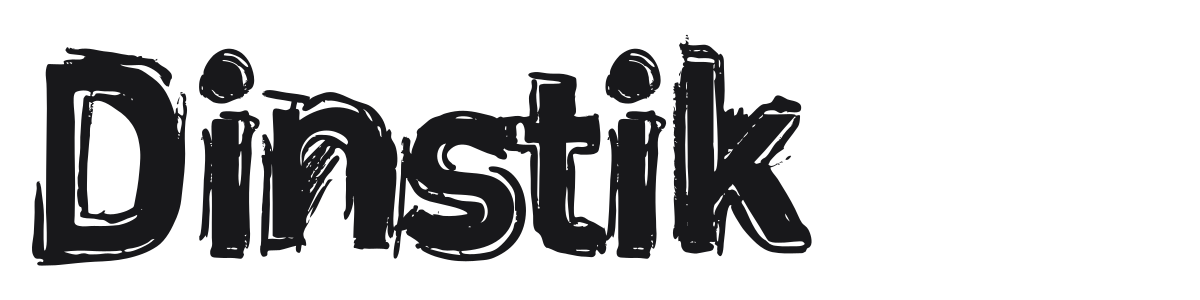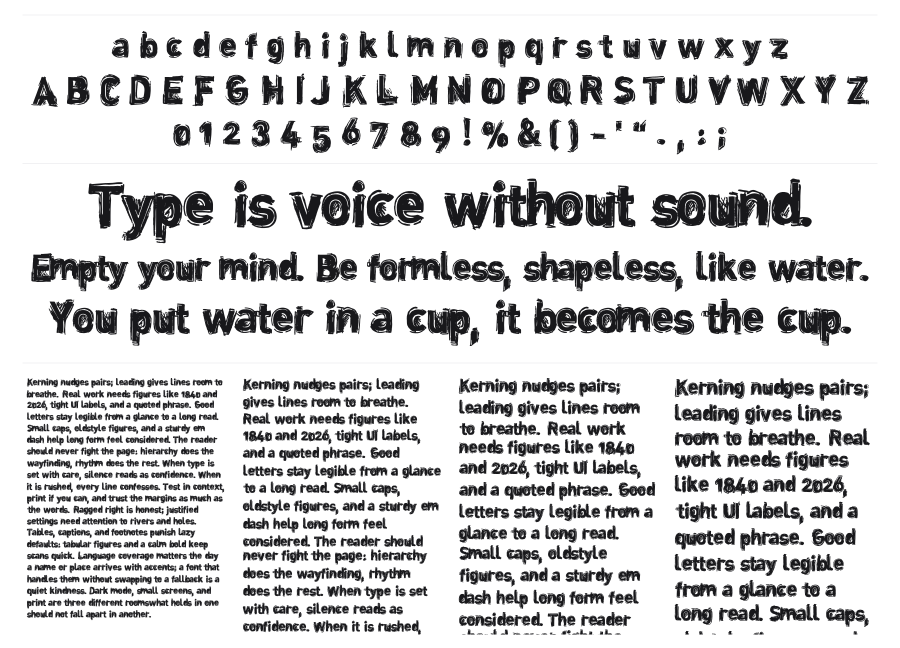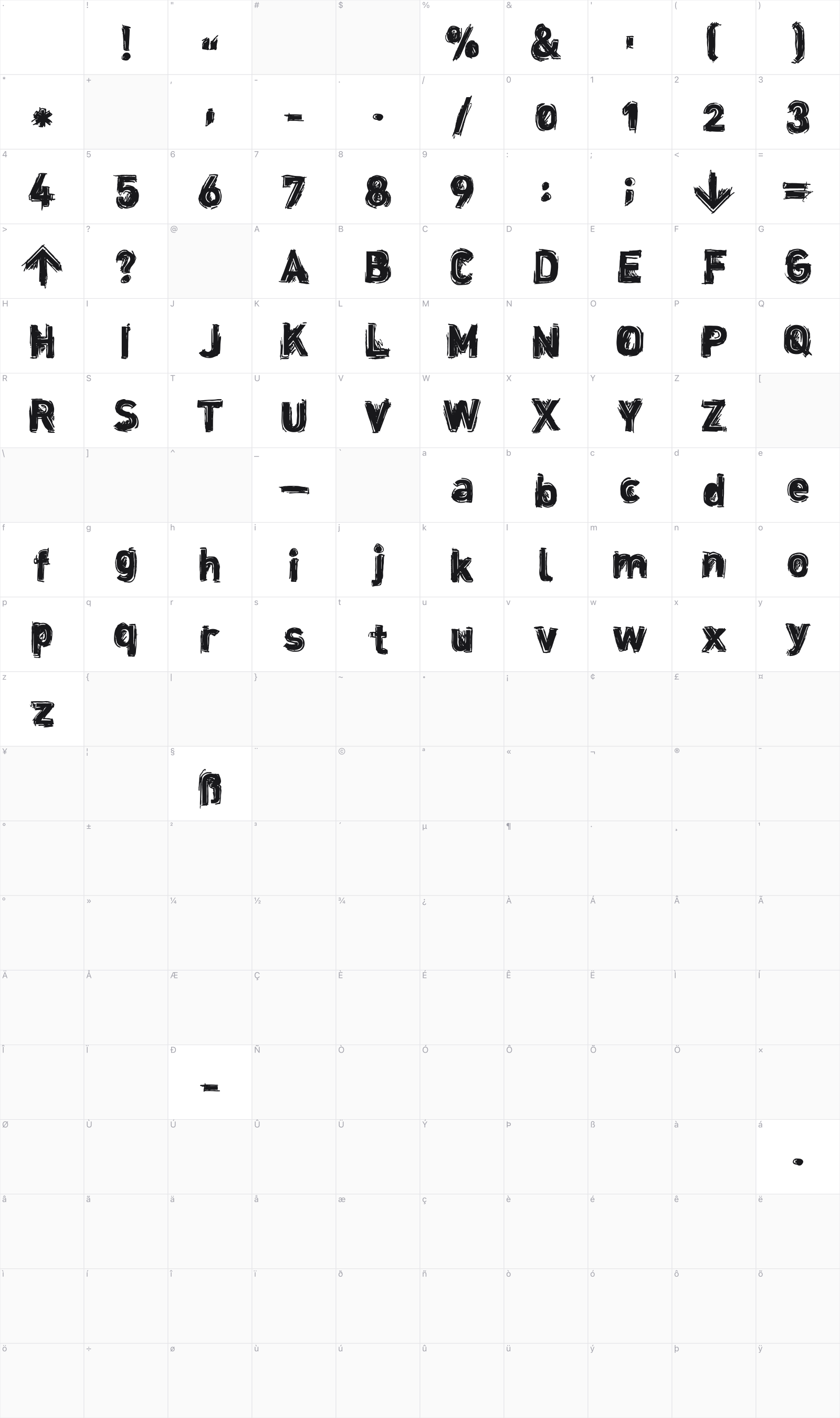
Dinstik
Dinstik is a heavy distressed display font with thick, chunky forms buried under layers of scratches, tears, and ink erosion. The underlying structure is a bold rounded sans, but the aggressive wear treatment gives it a raw, stamped-on-rough-paper energy. Strong choice for music posters, streetwear graphics, or anything that needs weight with attitude.